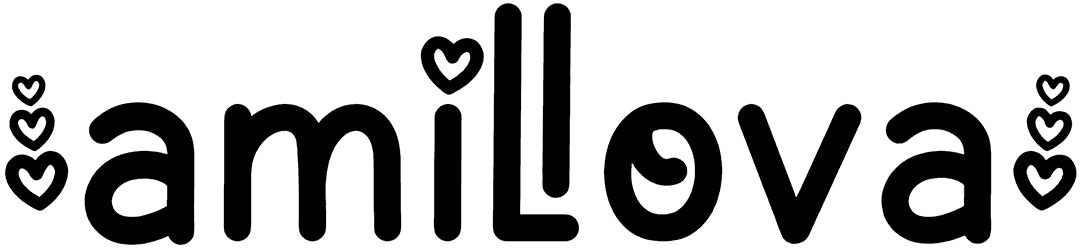
Amillova Font
When you want to impress a lot of viewers with different tastes, using a minimalist font for words will be a shrewd choice, and the Amillova font is one of them. This heart font has a full cover of characters, and you can use it for any project. Just test it for your Valentine’s event invitation flyer or other layouts and surprise your followers.